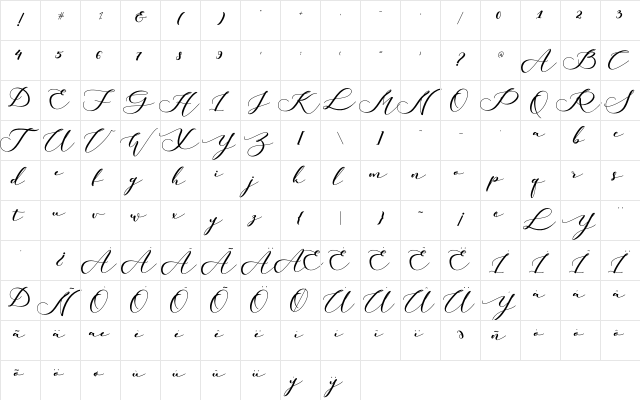
Kachine Regular
| Foundry | Alifquentin |
| Designer | Latifah |
Design Context for Kachine Typeface
Kachine is a composed and adaptable typeface that performs quietly and consistently across a wide range of design contexts.